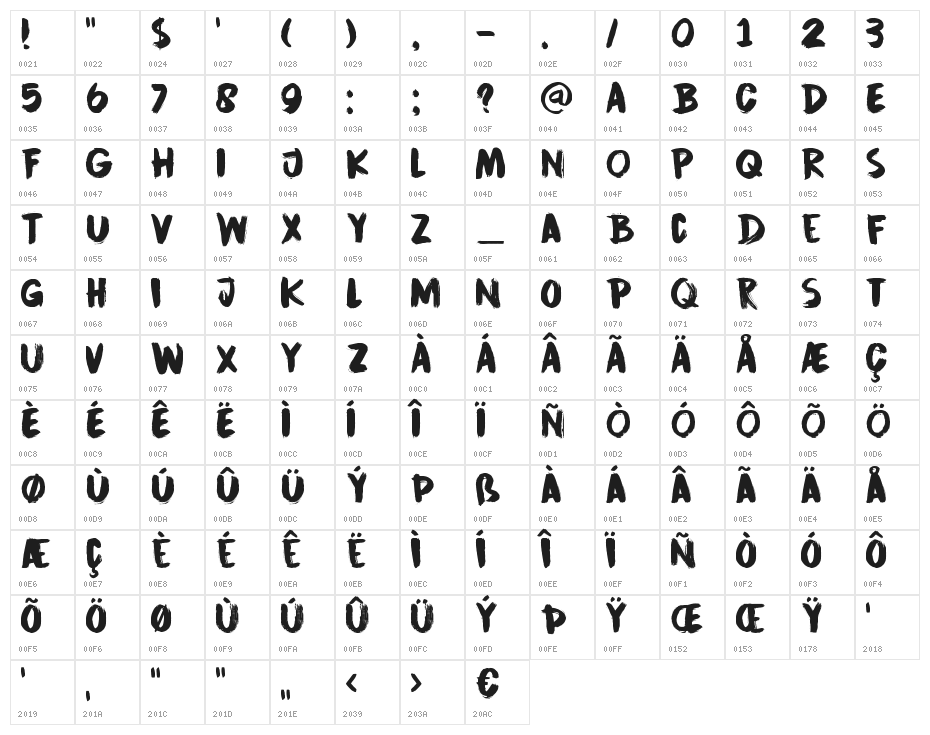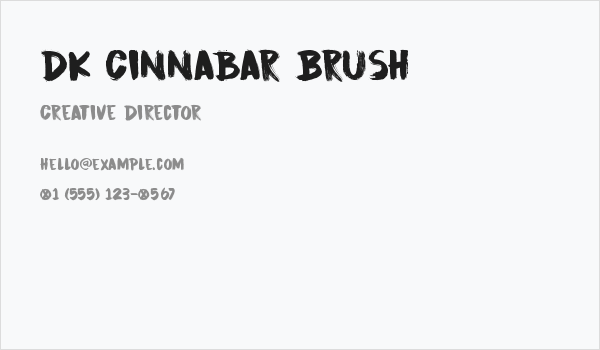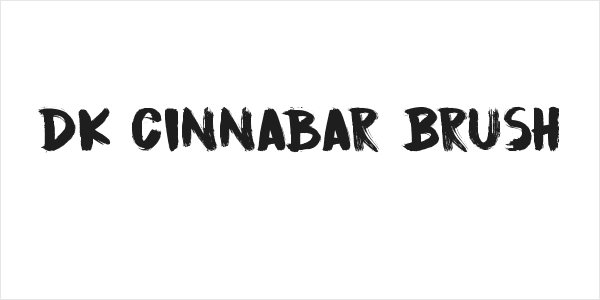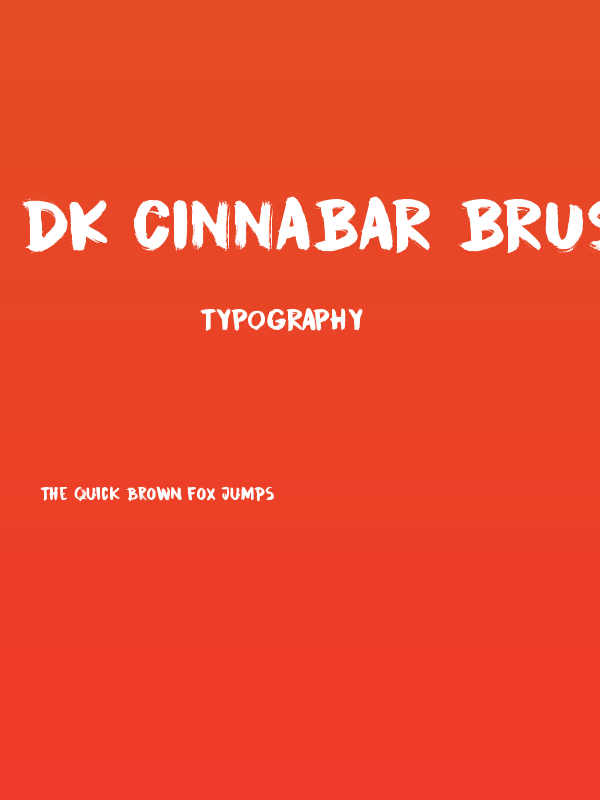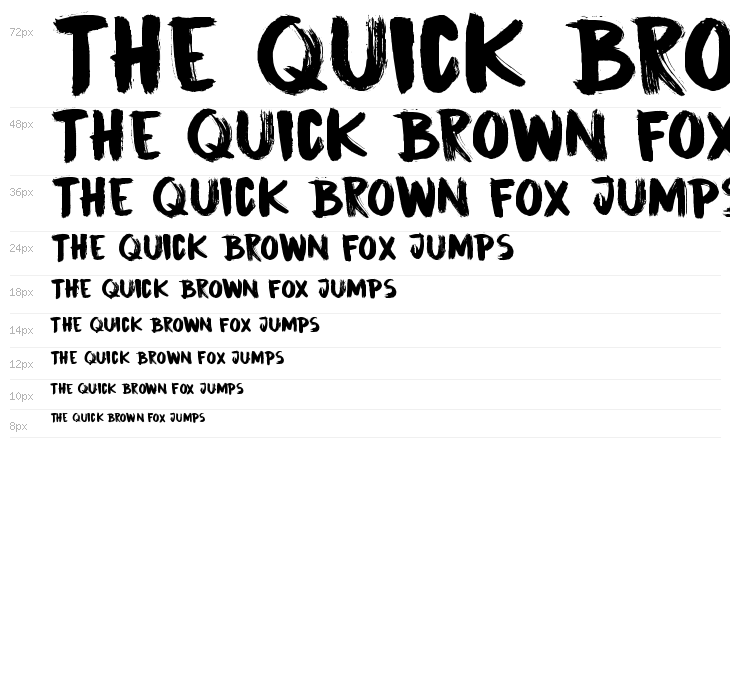
DK Cinnabar Brush Font
DK Cinnabar Brush Description
This font exudes a bold and expressive style, characterized by its brushstroke appearance. Each character is crafted with dynamic, sweeping strokes that convey a sense of movement and energy. The letters have a rough, textured edge, giving them an authentic, hand-painted look. The uppercase and lowercase characters maintain a consistent style, with the uppercase being slightly more pronounced. Numbers and special characters follow the same artistic theme, ensuring uniformity across all glyphs. This font is ideal for projects that require a strong visual impact and a creative, artistic flair.
| Proposed Projects | Perfect for artistic posters, creative branding, dynamic headlines, and expressive social media graphics. |